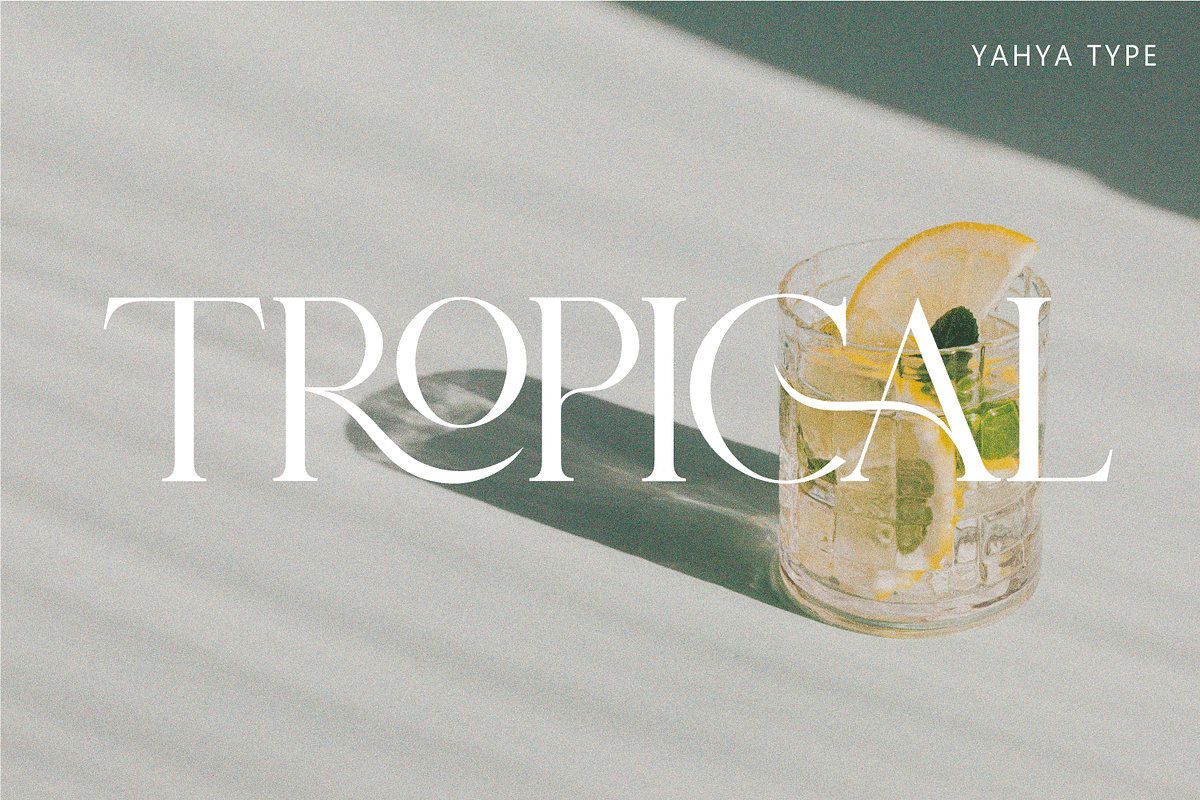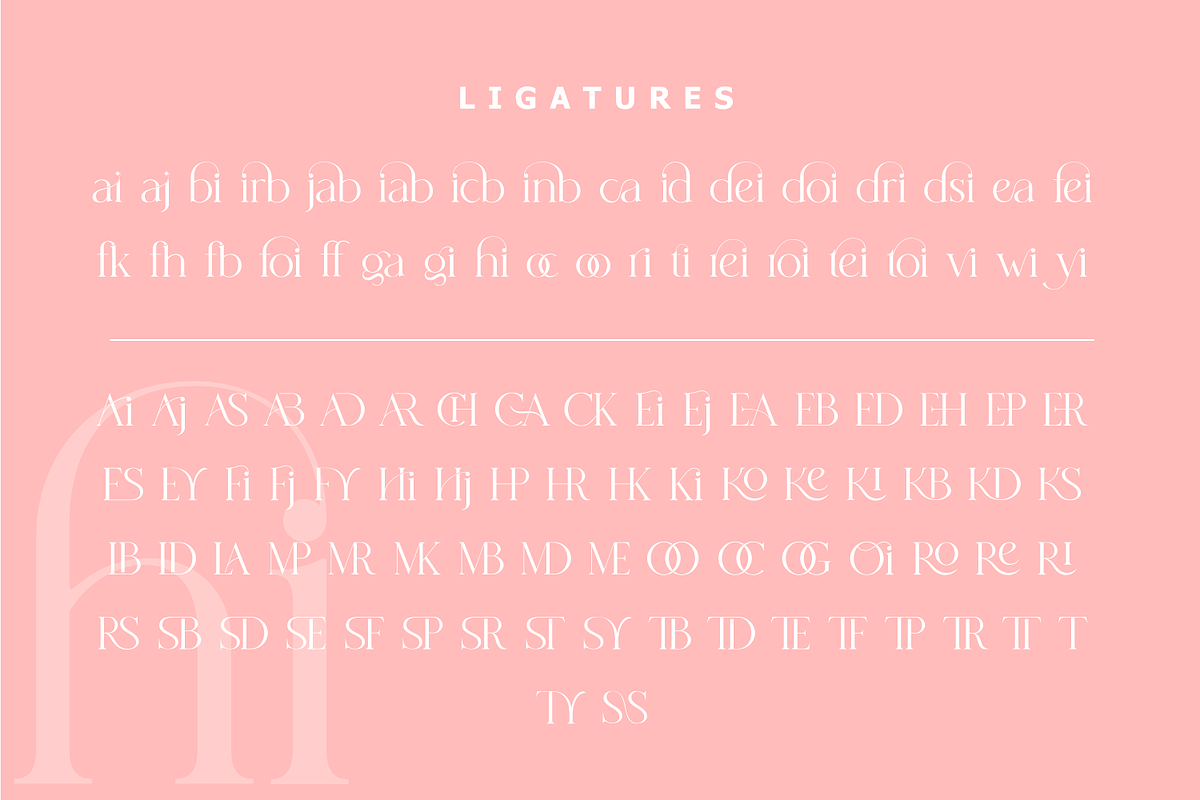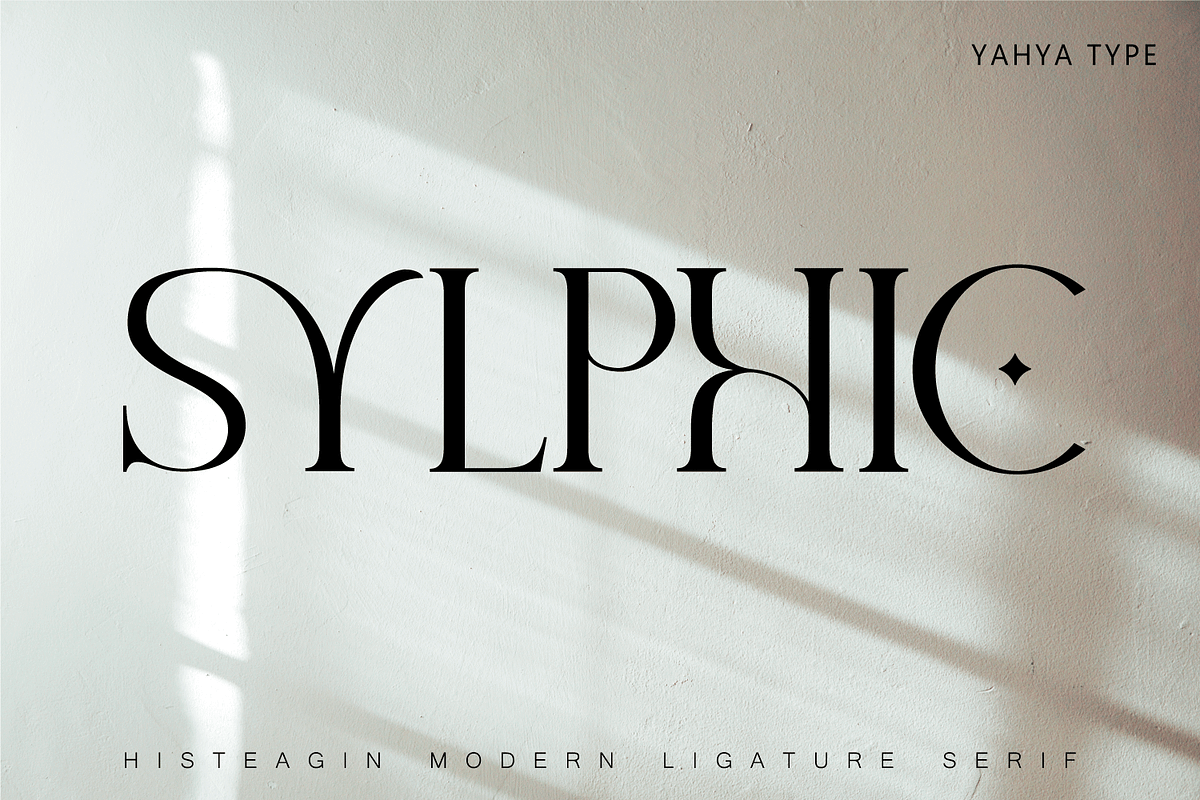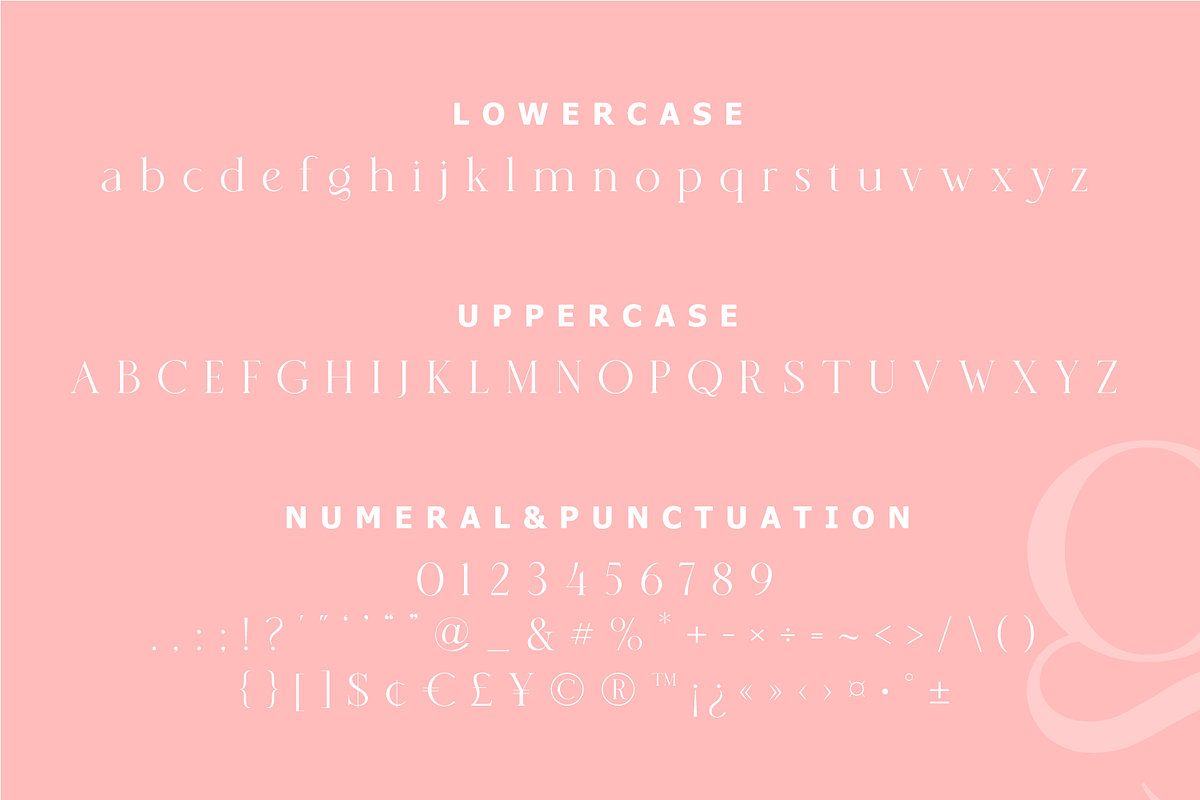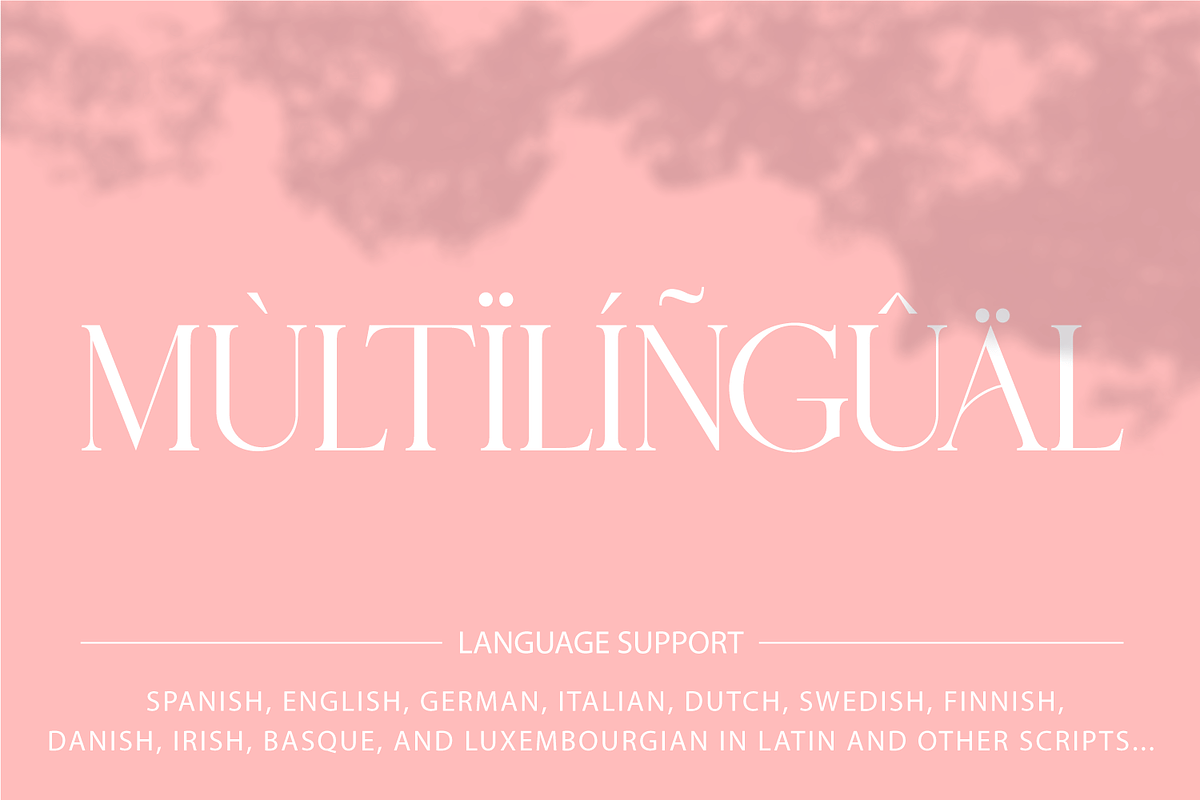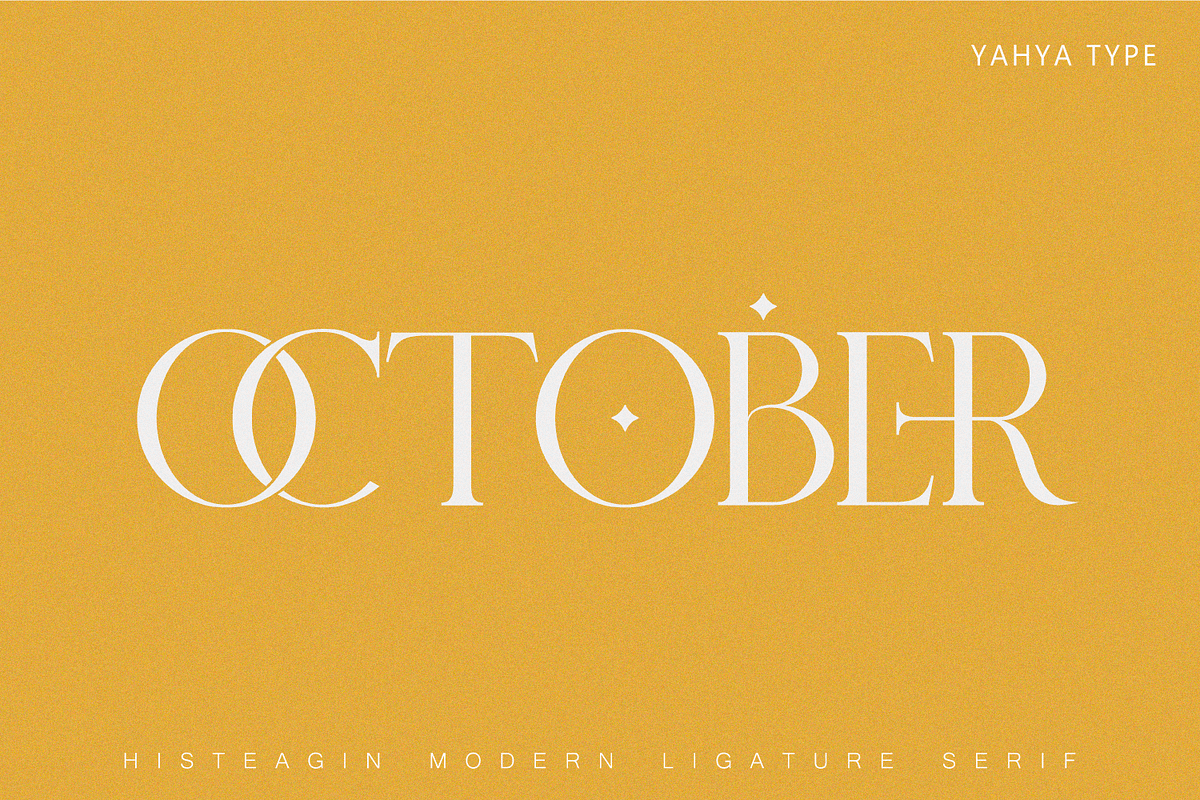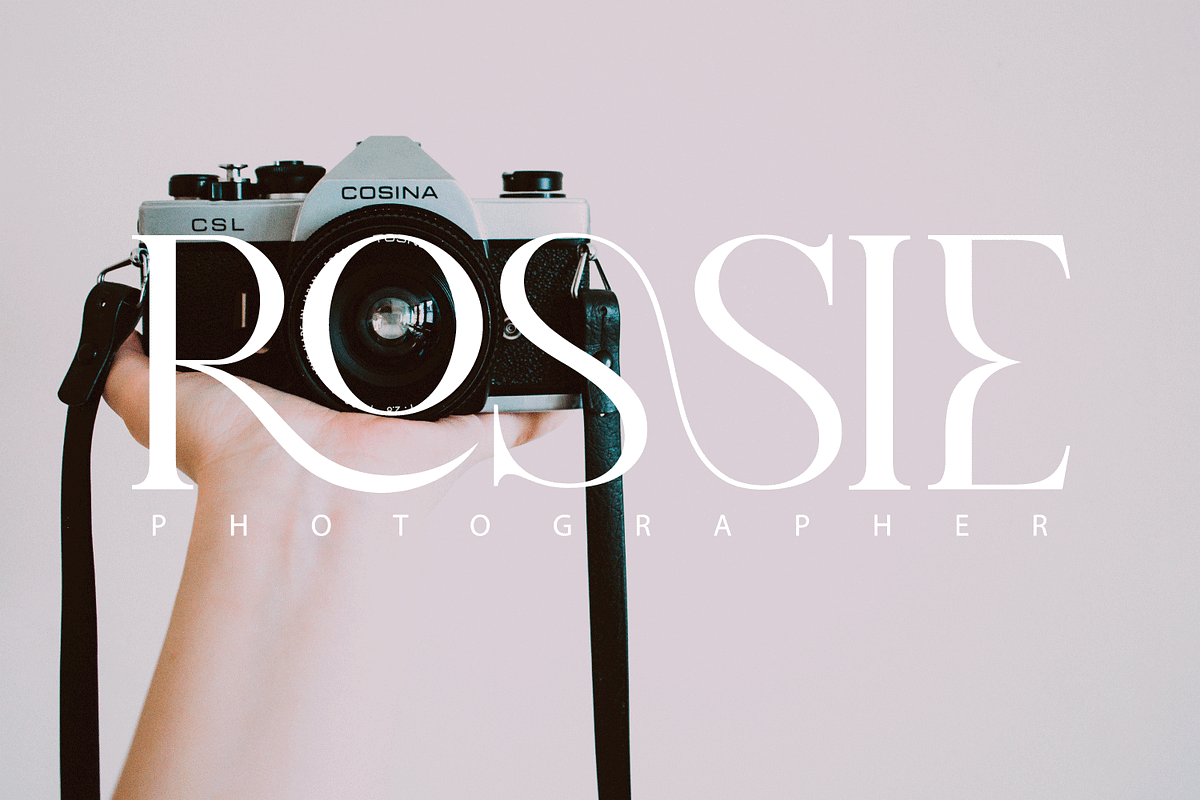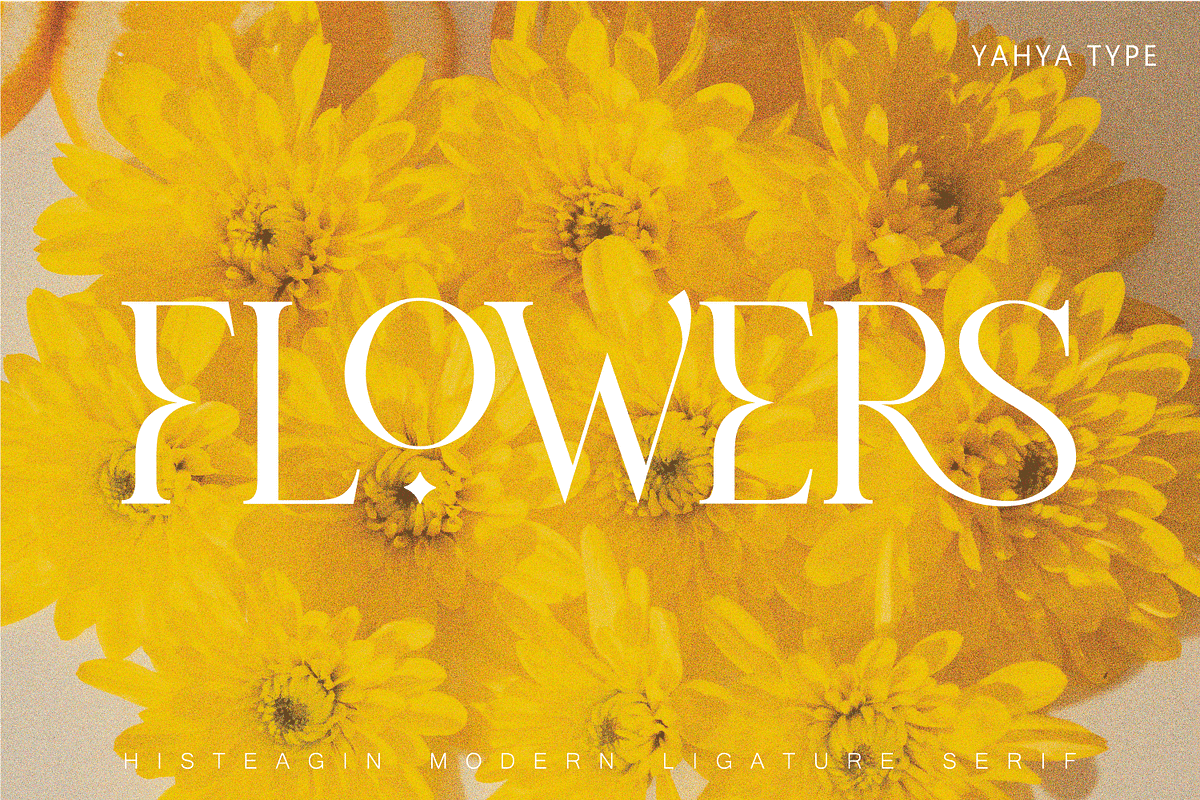
Histeagin Serif
Histeagin – A New Serif Font with Fancy Curves, More Alternative Characters, and Multilingual Support.
Histeagin – this style works well for branding projects, logos, wedding designs, social media posts, advertisements, product packaging, product designs, label, photography, watermark, invitation, or whatever project you’re working on.
- Numbers, punctuation
- Ligature & Huge Stylistic alternate
- Multilingual support.